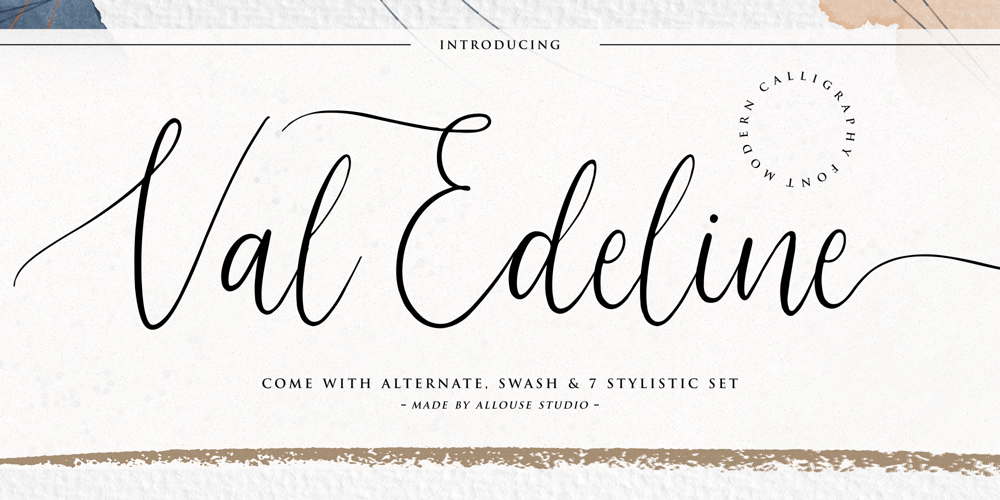
Val Edeline Font Family was designed by Fachrizal Yusuf and published by Allouse Studio. Val Edeline contains 1 styles and family package options. Proudly Presenting, Val Edeline a Modern Calligraphy Font.Val Edeline is perfect for any titles, logo, product packaging, branding project, megazine, social media, wedding, or just used to express words above the background.Val Edeline come with much features. Ligatures, beginning and ending swash, stylistic alternates and Multi-Lingual Support.We highly recommend using a program that supports OpenType features and Glyphs panels like many of Adobe apps and Corel Draw, so you can see and access all Glyph variations.Enjoy the font, feel free to comment or feedback, send me PM or email. Thank You!